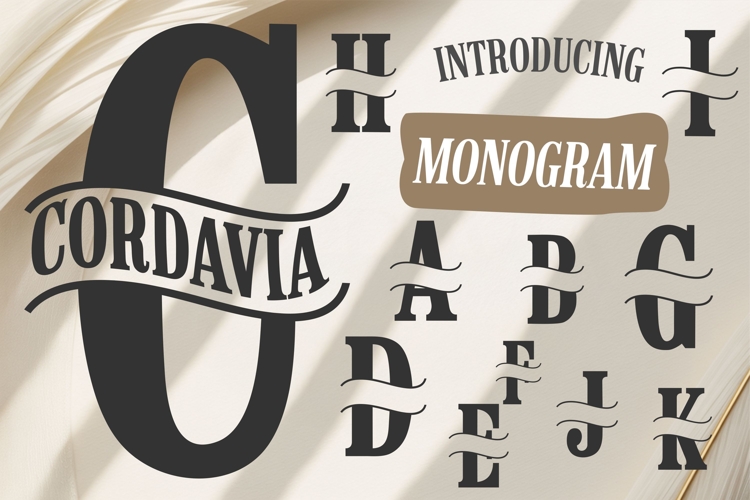
Cordavia Monogram is a bold serif display font designed for stylish monogram compositions, logos, and statement graphics. Each uppercase letter features a built-in swash line that cuts through the center, creating an elegant and professional visual effect — perfect for apparel, branding, signage, and Cricut crafts. Cordavia Monogram is compatible with Cricut, Silhouette, Canva, Procreate, Photoshop, Illustrator, and more.
Cordavia Monogram